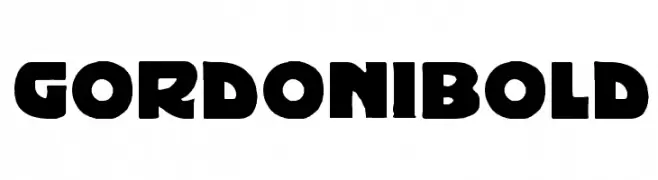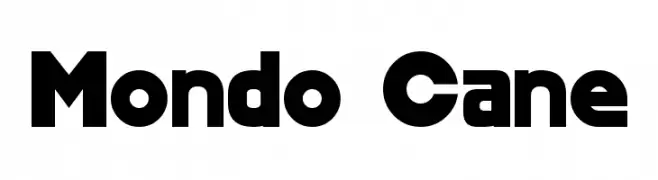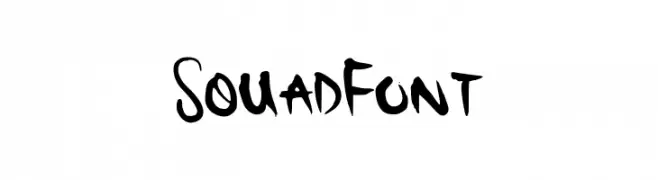
A bold, contour-effect font with a modern and classic blend, perfect for striking designs.
A bold, geometric font with strong, uniform letterforms.
A bold, brush-style font with dynamic, hand-painted strokes.
A bold, geometric font with a strong, modern presence.
A bold, geometric font with a strong, modern aesthetic.
A bold, modern font with geometric cuts and a strong presence.
A bold, geometric font with a three-dimensional effect and strong visual impact.